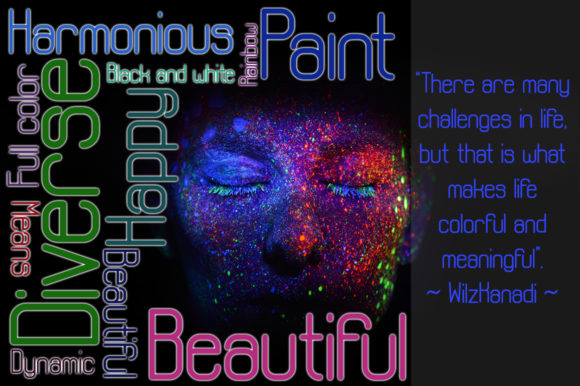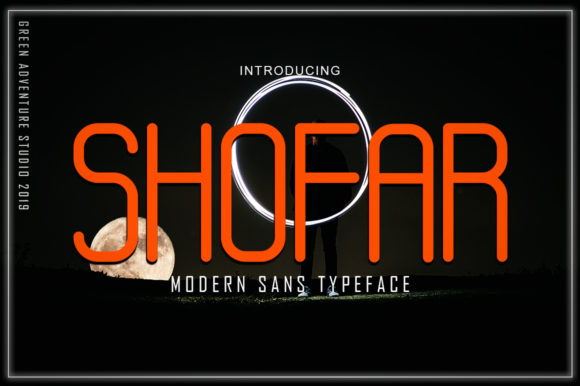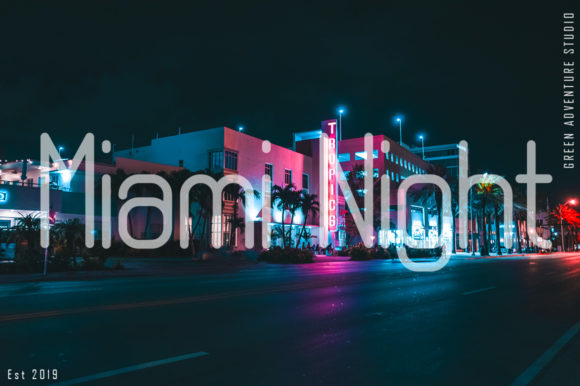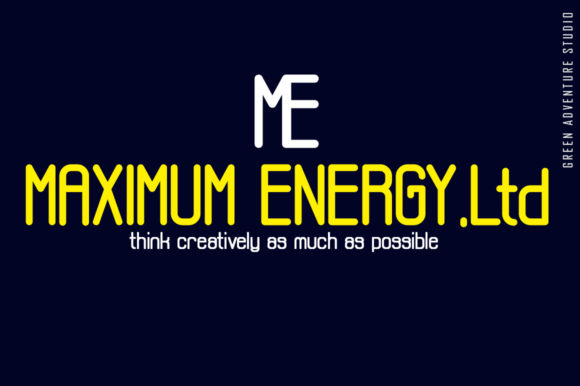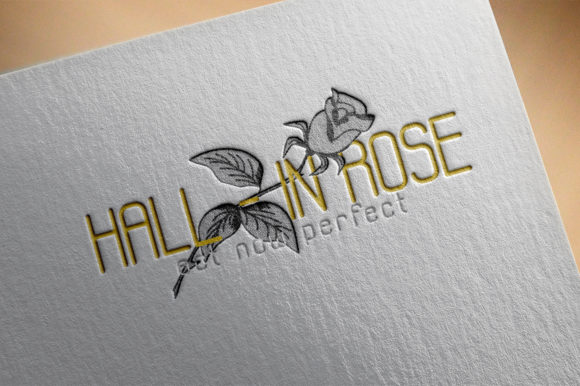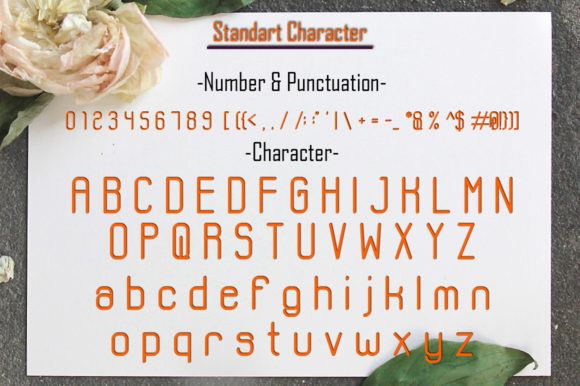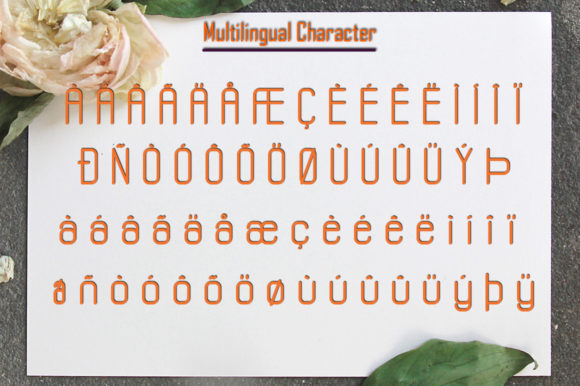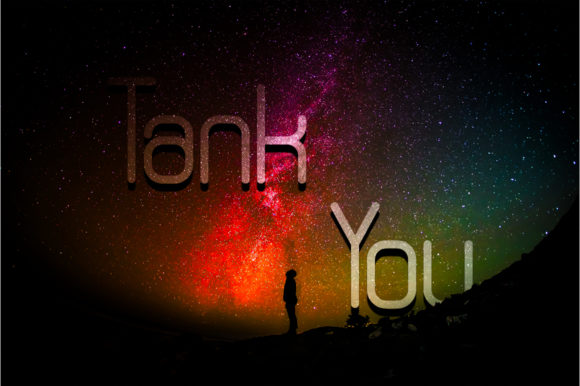
HomeSans Serif FontsShofar Font Sans Serif Fonts Shofar Font FacebookTwitterPinterestWhatsApp Shofar Font 1 of 8 About Shofar Font Shofar combines its lines and squares with dynamically curved corners, allowing it to become a beautiful and consistent font. DOWNLOAD NOW People also explored Aomine Font Kiosk Clarsly Font Baxley Morning Patric Font Apple Font Thanksgiving Pilgrim Font Meta Courage Font Resttu Pagi Font 206 0 TagsShofarShofar Font Previous articleNavada FontNext articleFreed Shackle Font LEAVE A REPLY Cancel reply Comment: Please enter your comment! Name:* Please enter your name here Email:* You have entered an incorrect email address! Please enter your email address here Website: Save my name, email, and website in this browser for the next time I comment. Personal Use Free Gunplay Personal Use Free Read more about this font Foolish Hand Personal Use Free Read more about this font Mandara Personal Use Free Read more about this font Equestrain Personal Use Free Read more about this font BLOG The 10 Best Handwriting Fonts to Add Personality to Your Designs 10 of the Best Handwriting Fonts for Adding Personality to Your Designs There will undoubtedly be no other better choice than handwriting fonts to give... Best Fonts for T-Shirt Design – Top 2025 Picks Using Fonts in Digital Marketing: Tips to Strengthen Your Brand Identity Best Fonts for YouTube Videos: Make Your Thumbnails Stand Out